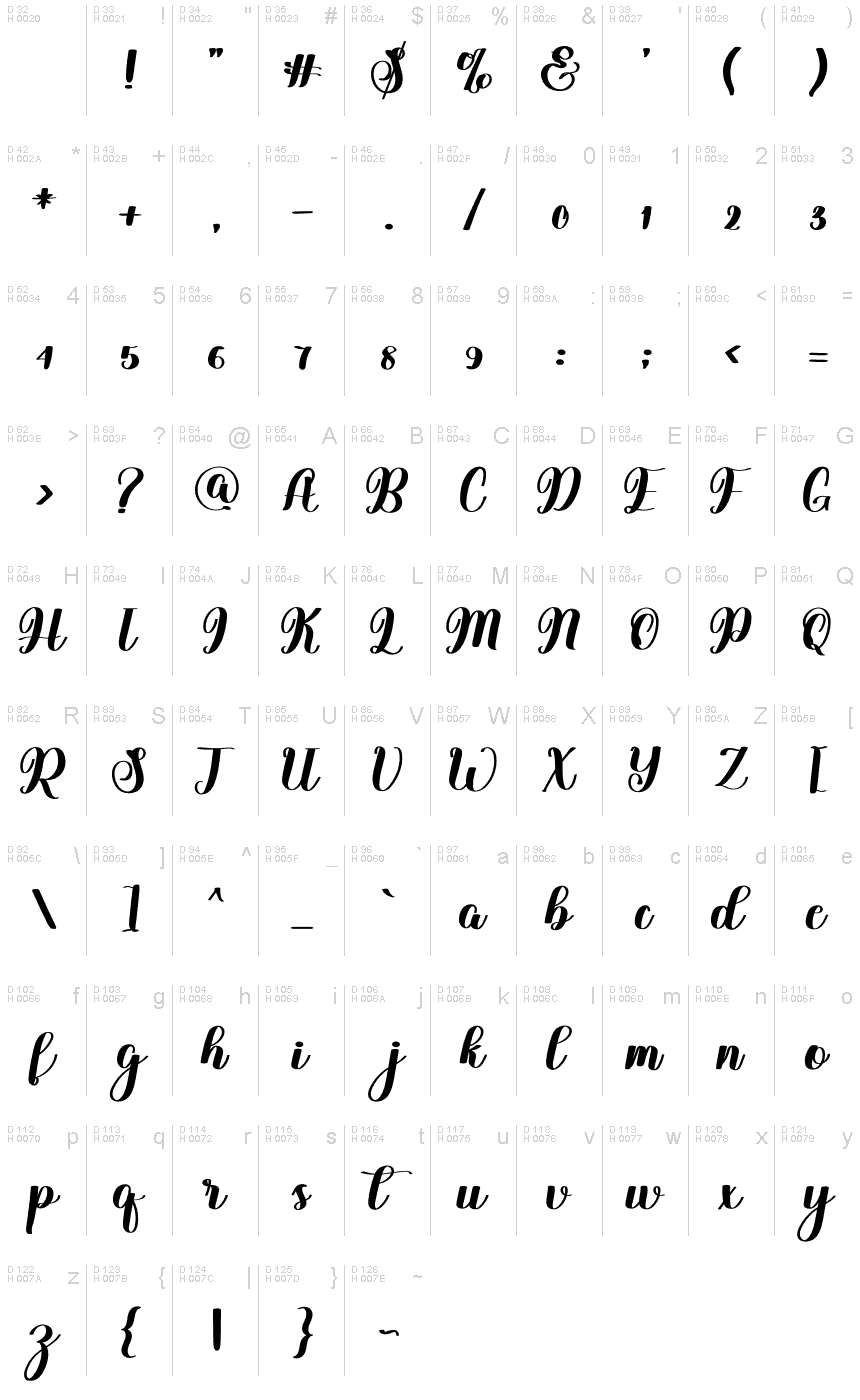
Delysha Script
Delysha Script, designed by FreshtypeINK, enchants with its exquisite calligraphy style. This font oozes elegance, making it perfect for wedding invitations, high-end branding projects, and sophisticated editorial designs. Its delicate curves and graceful strokes captivate readers, adding a touch of refinement to any project. With its versatile range of font styles – from light to bold – Delysha Script effortlessly adapts to various creative endeavors. Whether crafting luxury packaging or designing stunning logos, this font exudes timeless charm and elevates any project to new heights of sophistication.